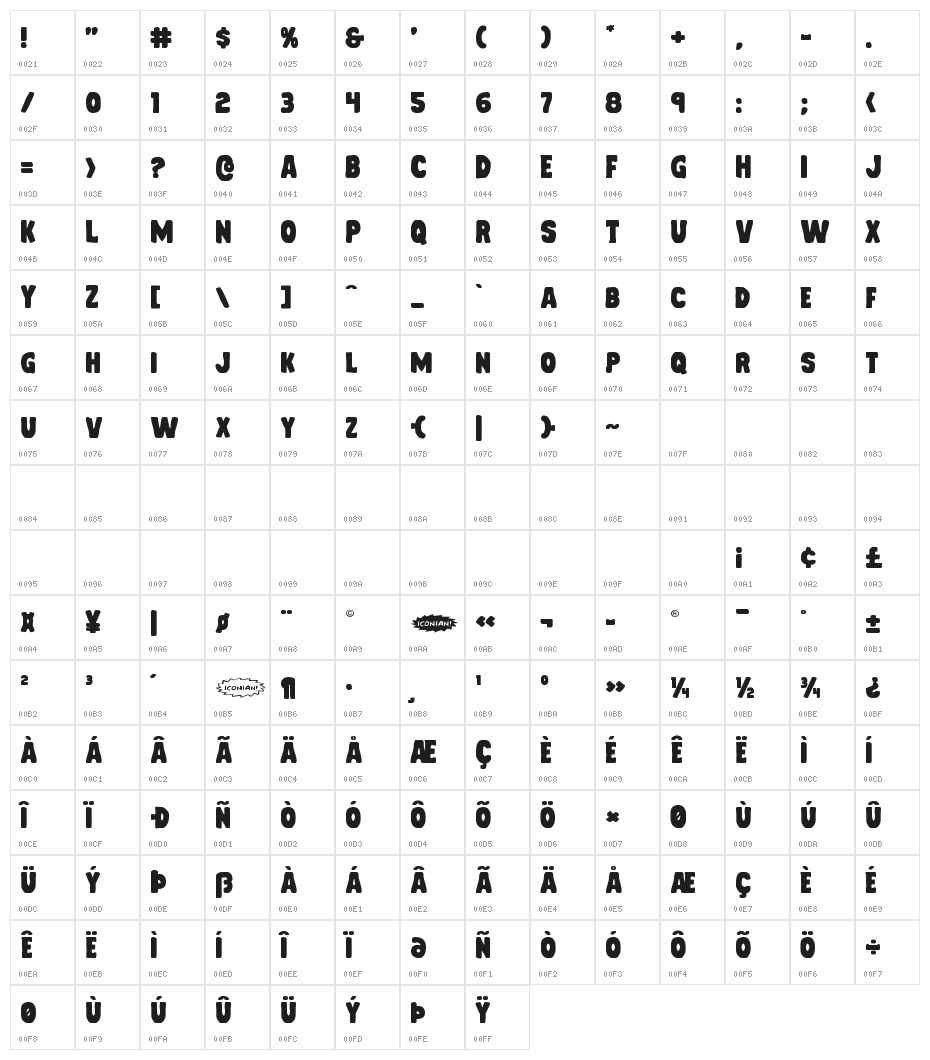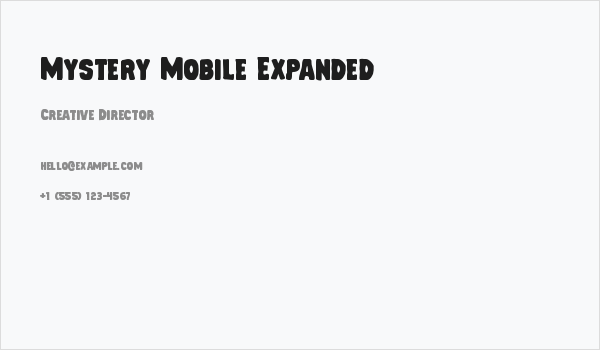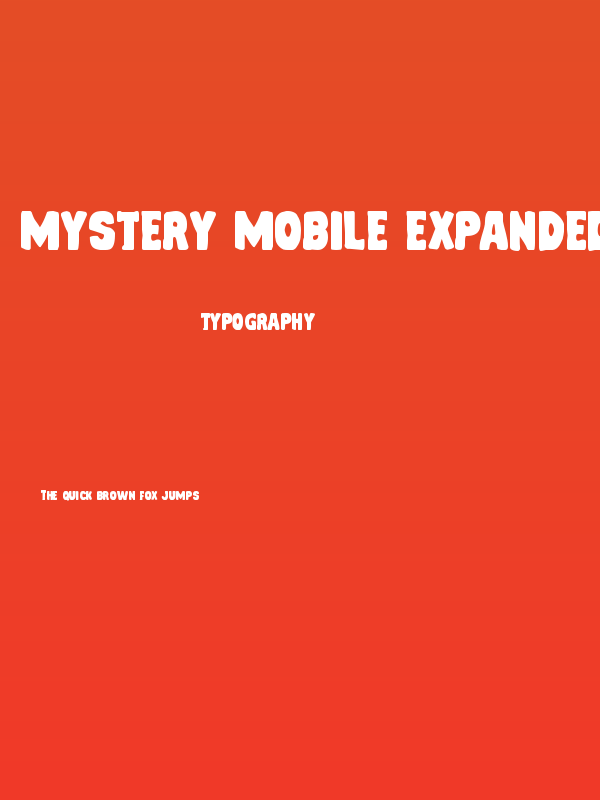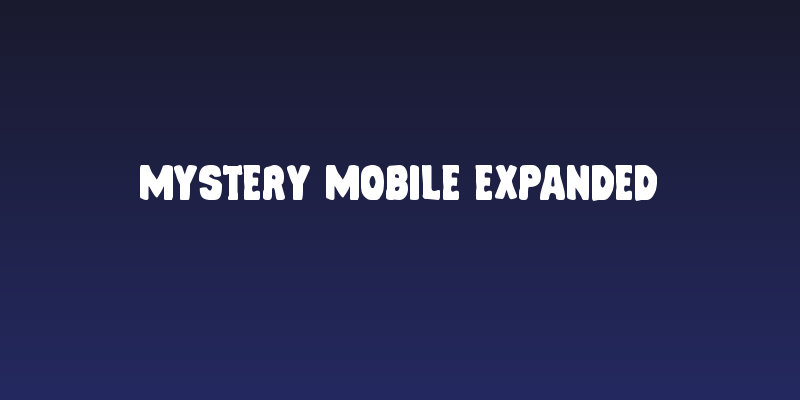
Mystery Mobile Expanded Font
Mystery Mobile Expanded Description
This font features bold, rounded characters with a playful and energetic style. The letters are thick and have a slightly irregular shape, giving them a hand-drawn appearance. The overall look is casual and friendly, making it suitable for projects that require a fun and approachable aesthetic. The numbers and special characters maintain the same bold and rounded style, ensuring consistency throughout the typeface. The font's expanded width adds to its bold presence, making it stand out in any design.
Overall StylePlayful
Proposed ProjectsIdeal for children's books, playful branding, posters, and social media graphics.